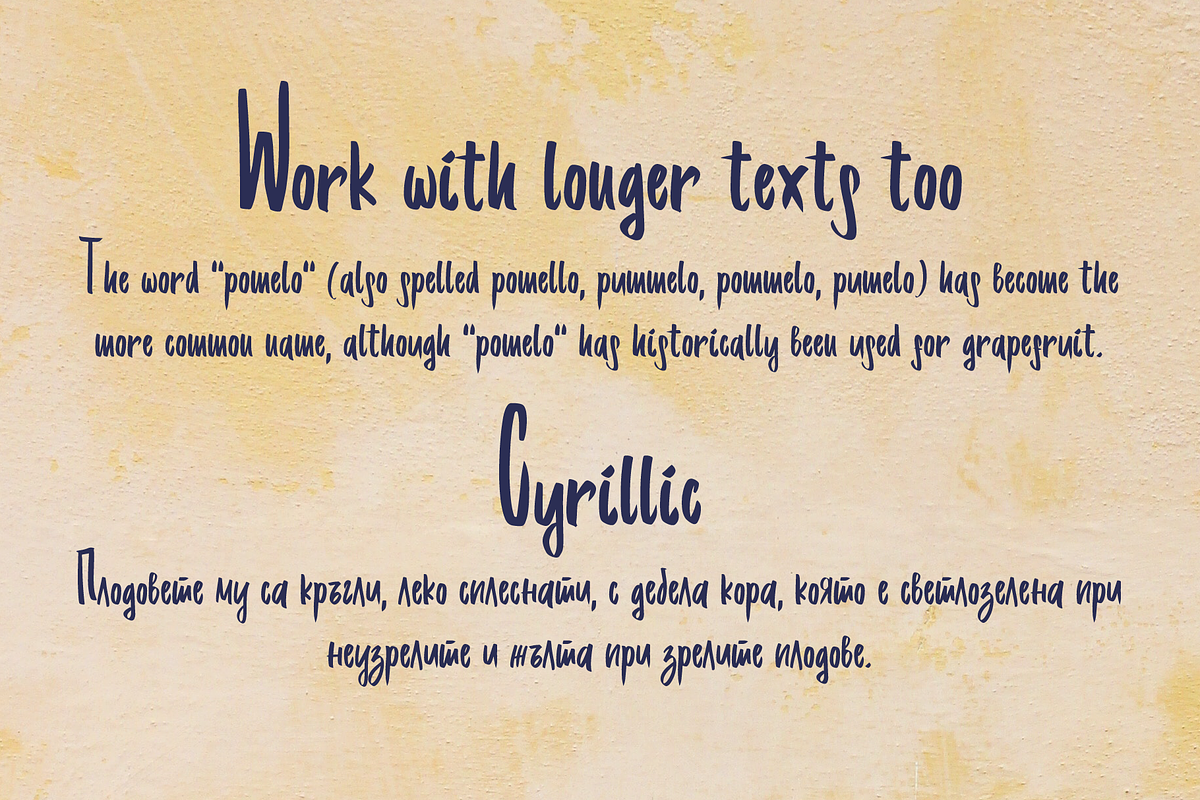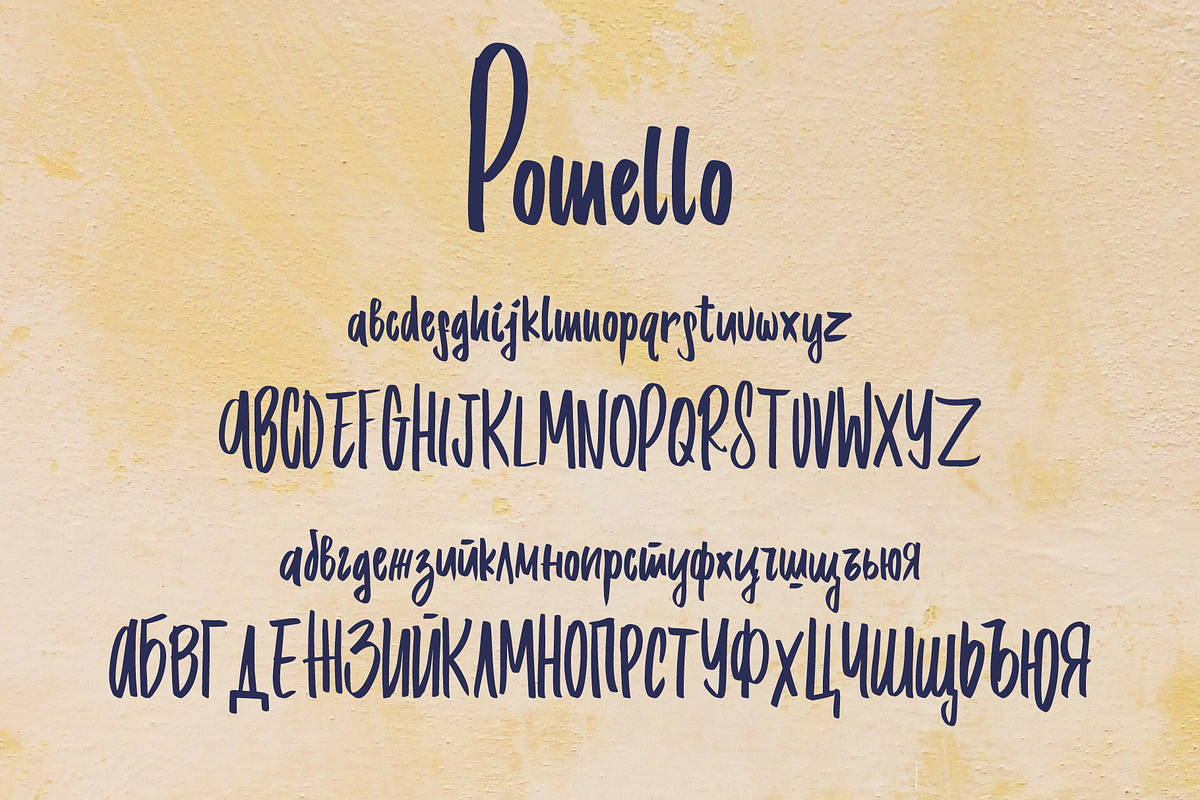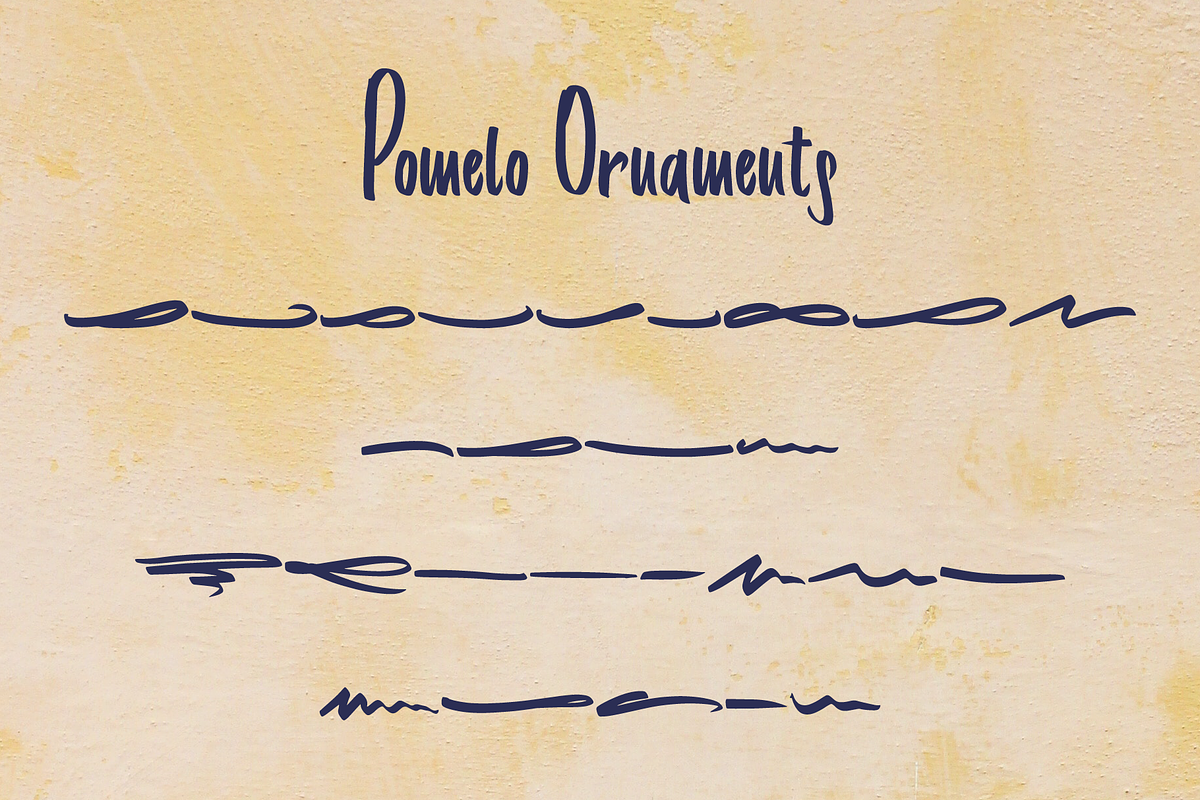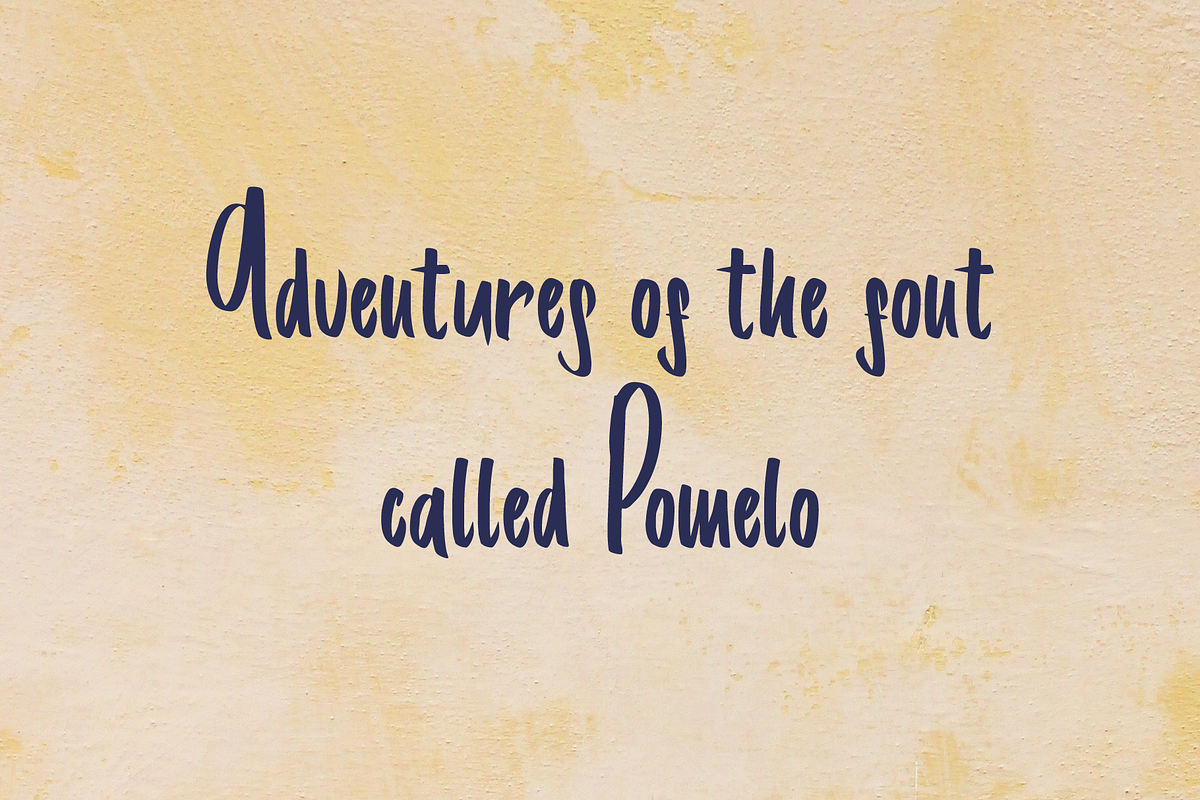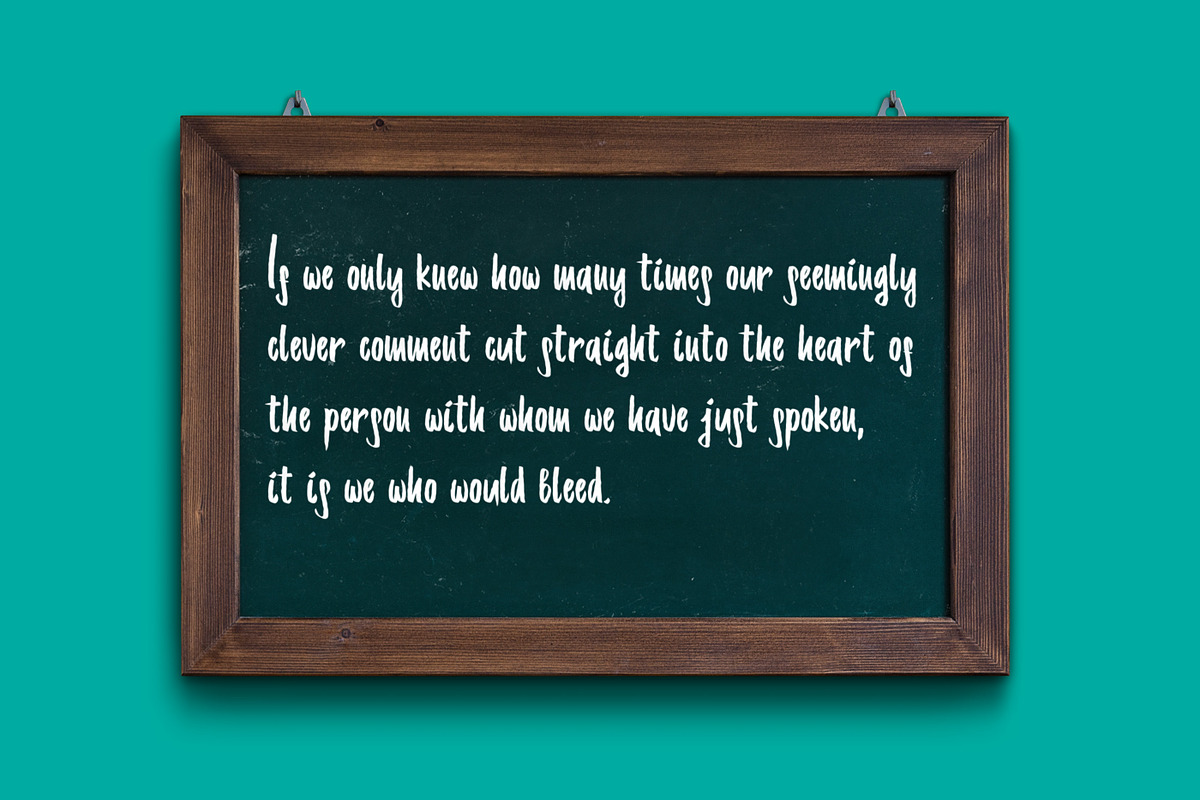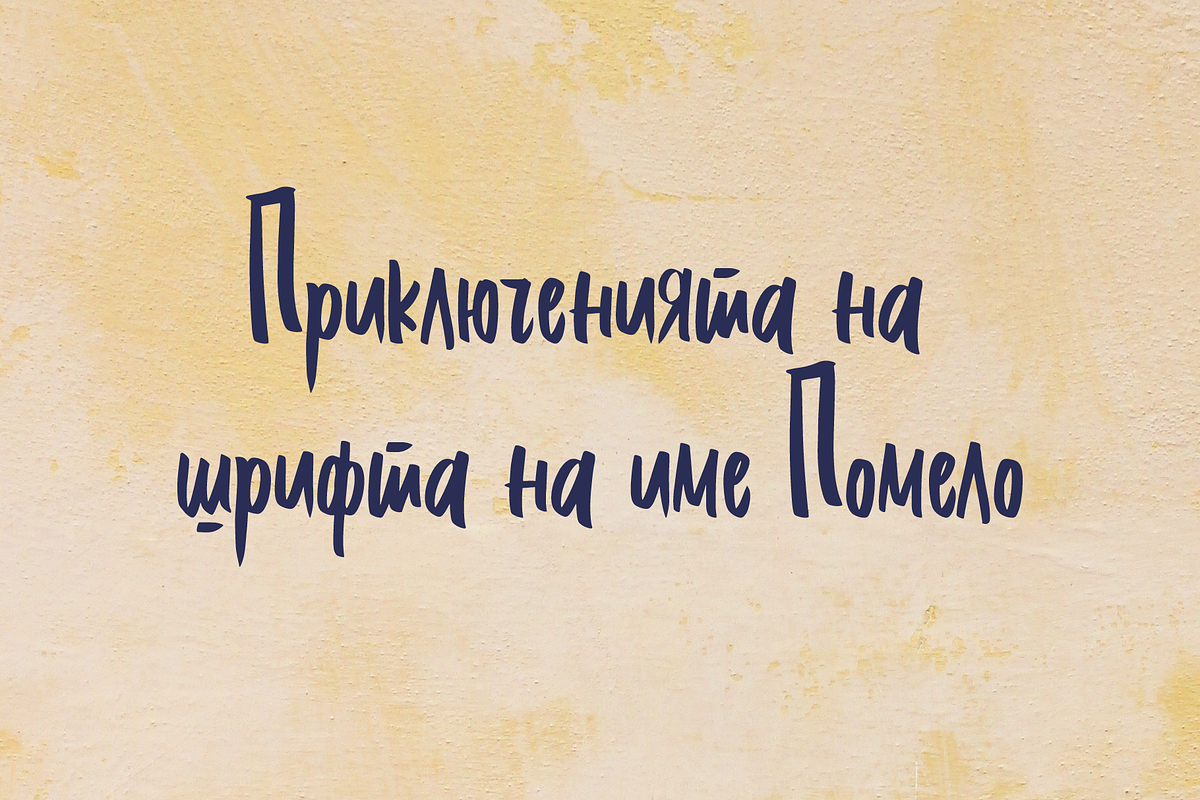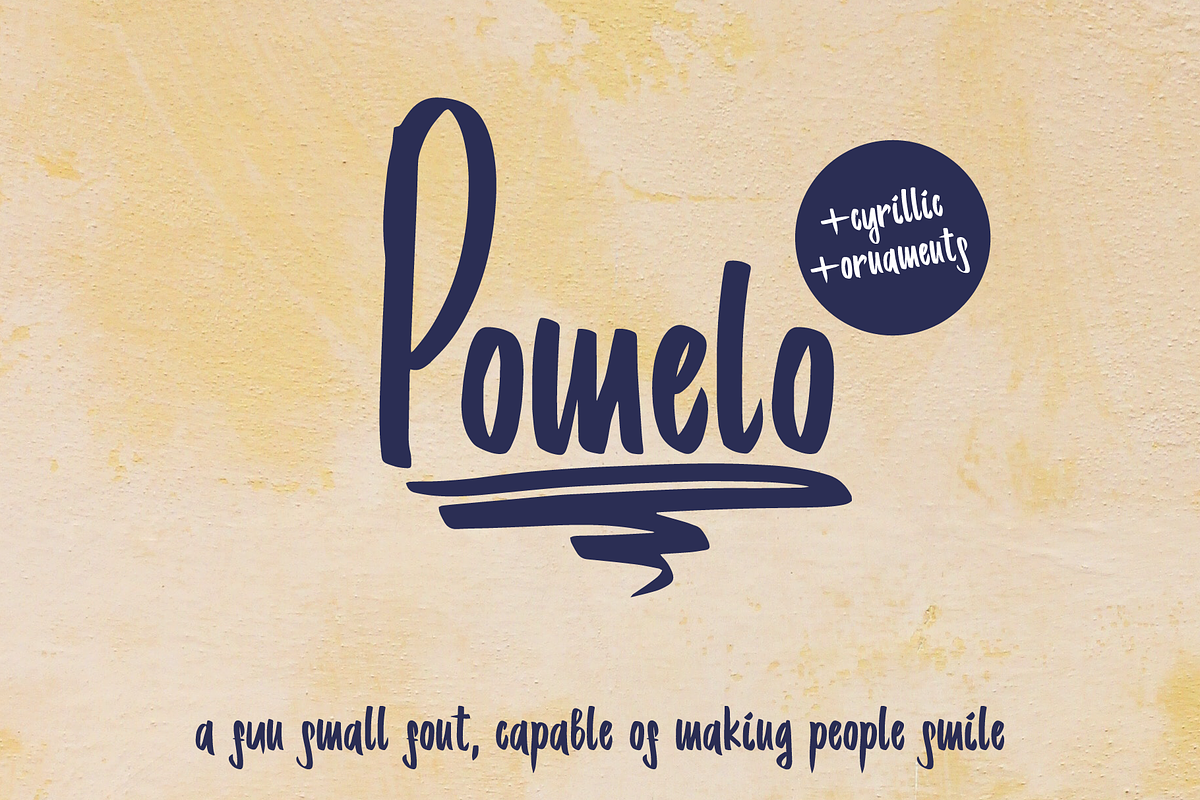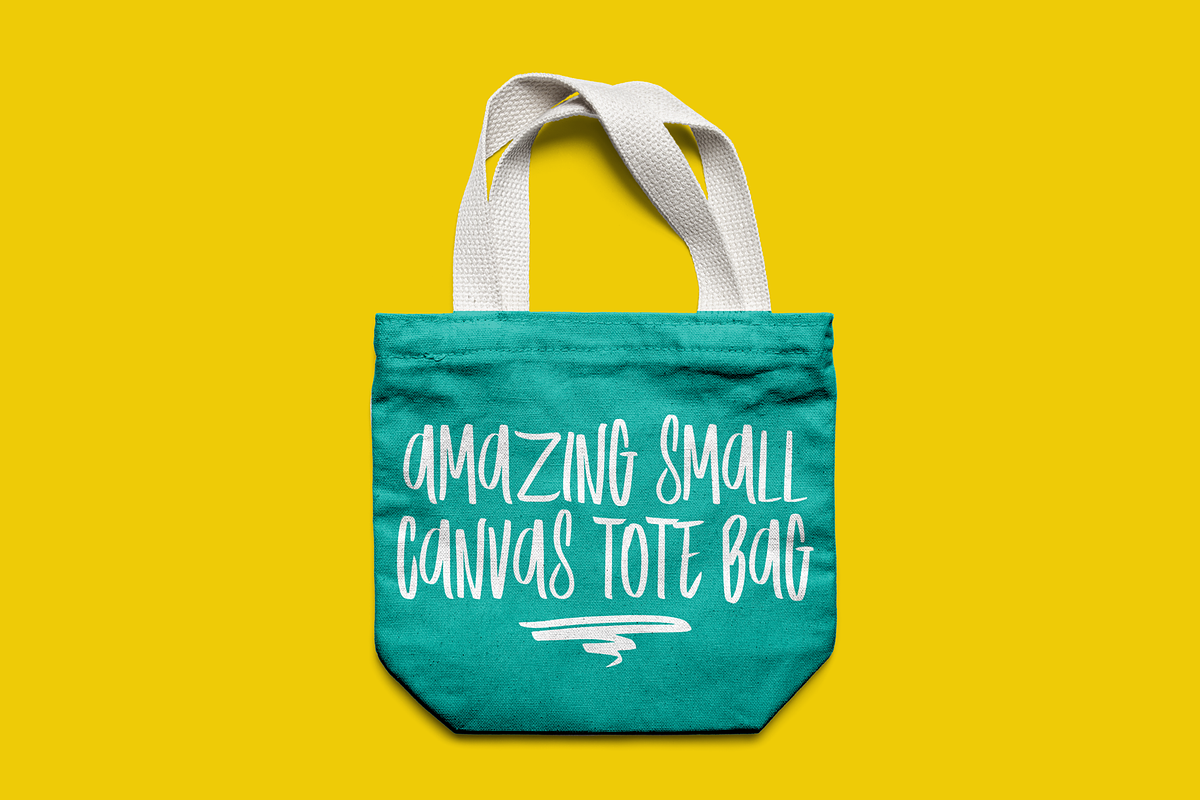
Pomelo font
Introducing Pomelo font; a lovely tall, handwritten font. Beautiful and stylish it includes a set of ornaments and Cyrillic set as well. It can suit well a large scope of design projects such as posters, advertising, social network posts packaging and more. It is a care free, yet easily readable.
- Beautiful and stylish it includes a set of ornaments and Cyrillic set as well.
Why Pomelo font is worth a look
Pomelo font by MarioPanDeliver fits naturally into Branding, posters, packaging, typography.